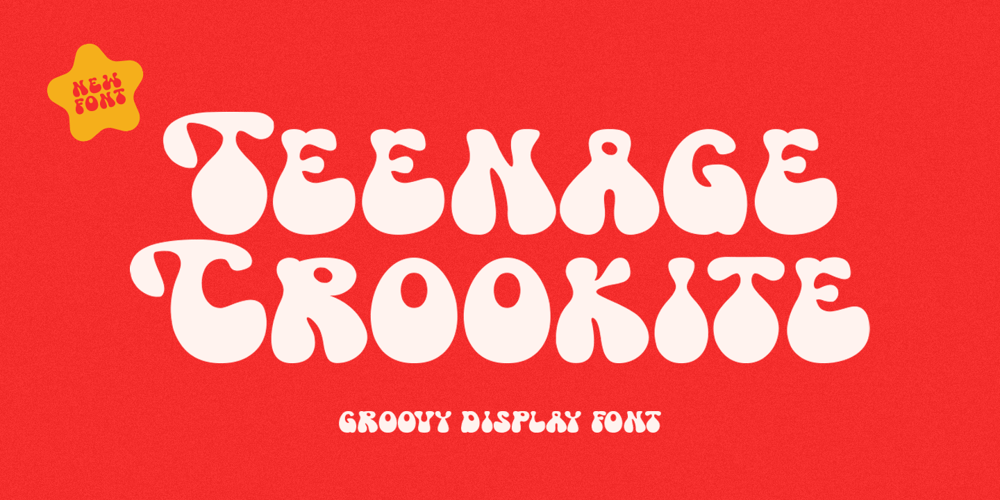
Teenage Crookite Font Family was designed by Miftahul Habib and published by Teenage Foundry. Teenage Crookite contains 1 styles and family package options. Teenage Crookite – Groovy Display Font By Teenage FoundryIntroducing our latest font creation – a groovy typeface that’s sure to transport you back to the funky, psychedelic era of the 60s and 70s! With its bold, playful style and unique character, this font is perfect for adding a retro feel to your design projects.This font is incredibly versatile and can be used for a range of design projects, including posters, album covers, branding, and more. Its groovy style gives it a unique character that’s sure to make an impact.Features: Uppercase, Lowercase, Numeral, Punctuation & Multilingual.Multilingual contained: Afrikaans, Albanian, Asu, Basque, Bemba, Bena, Breton, Catalan, Chiga, Cornish, Danish, Dutch, English, Estonian, Filipino, Finnish, French, Friulian, Galician, German, Gusii, Indonesian, Irish, Italian, Kabuverdianu, Kalenjin, Kinyarwanda, Luo, Luxembourgish, Luyia, Machame, Makhuwa-Meetto, Makonde, Malagasy, Manx, Morisyen, North Ndebele, Norwegian Bokmål, Norwegian Nynorsk, Nyankole, Oromo, Portuguese, Quechua, Romansh, Rombo, Rundi, Rwa, Samburu, Sango, Sangu, Scottish Gaelic, Sena, Shambala, Shona, Soga, Somali, Spanish, Swahili, Swedish, Swiss German, Taita, Teso, Uzbek (Latin), Volapük, Vunjo, Zulu.For any questions please contact me 🙂Thanks!